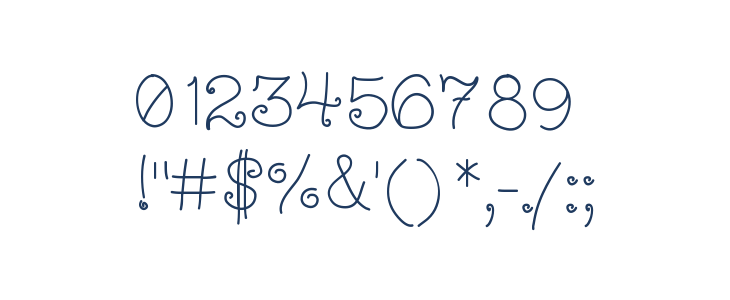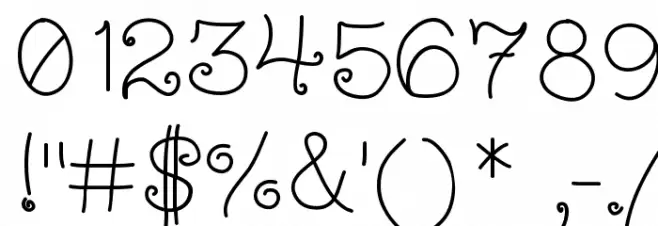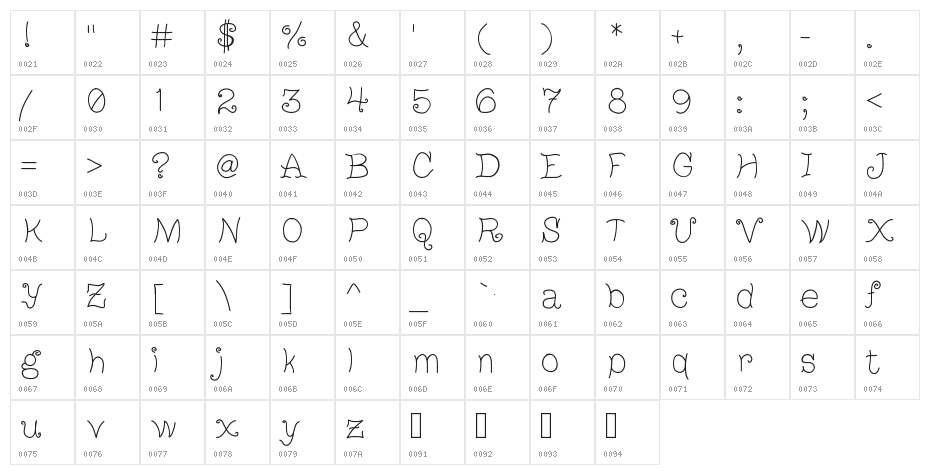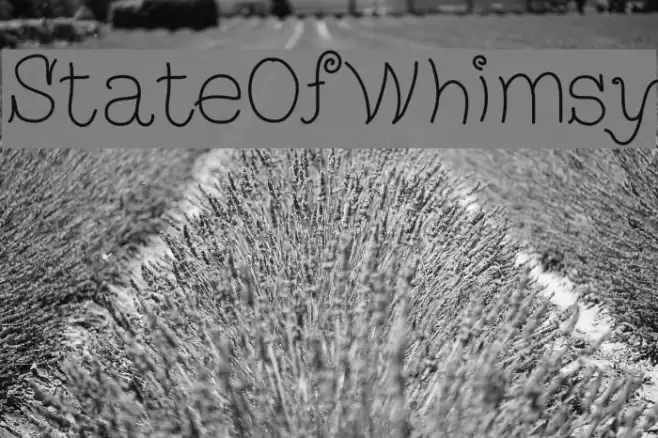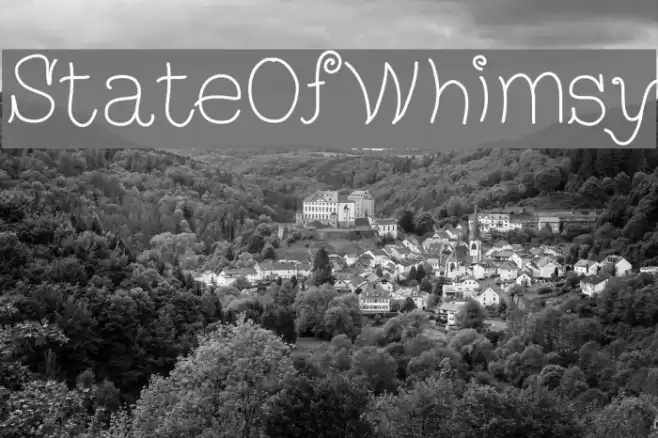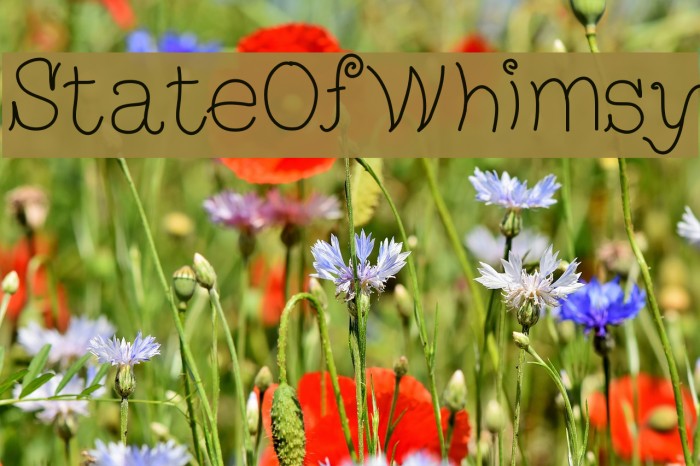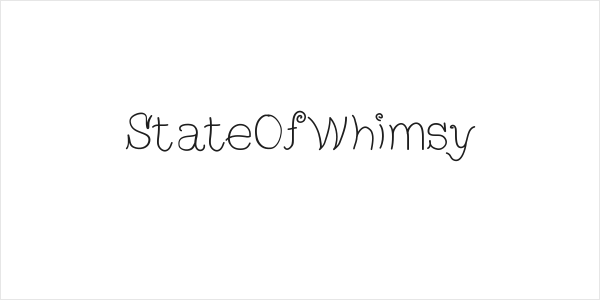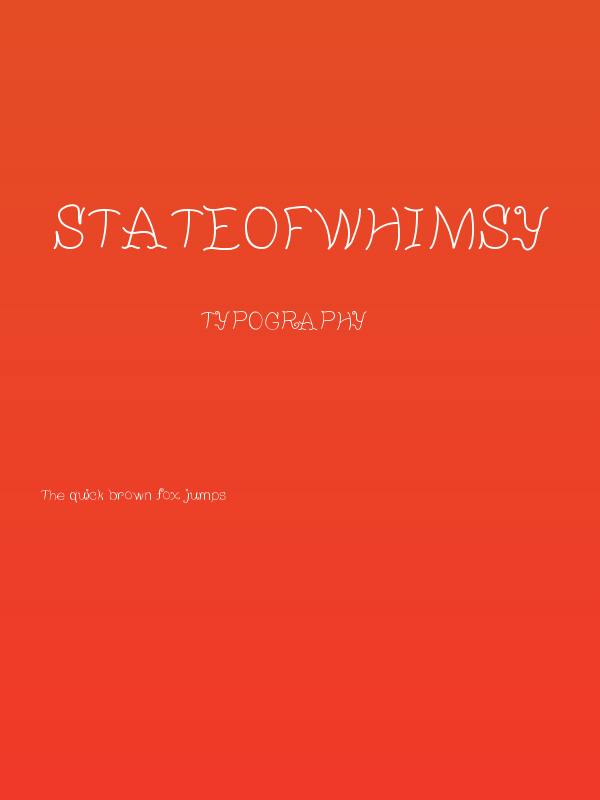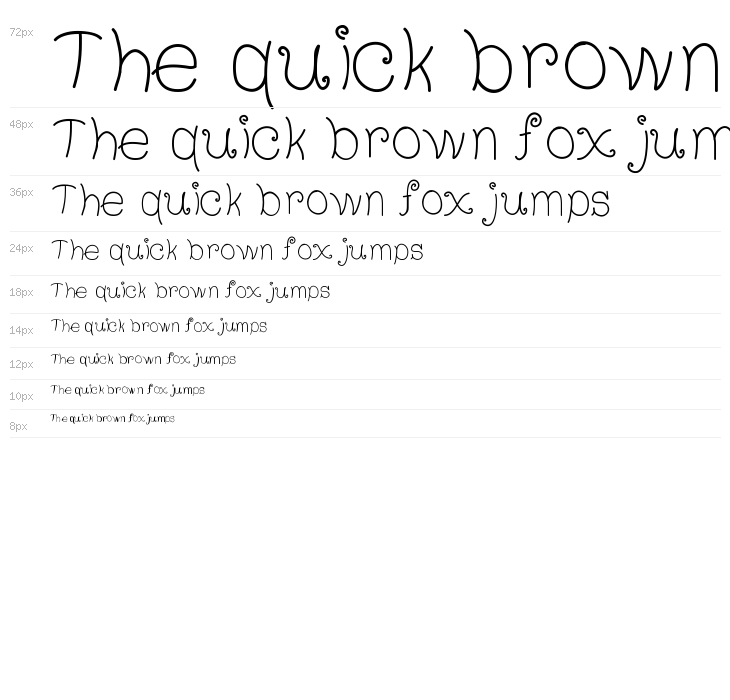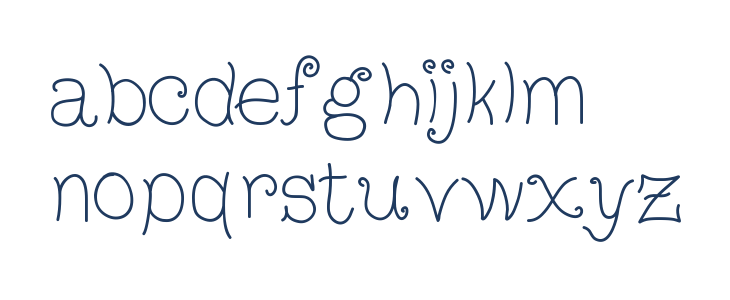
StateOfWhimsy Font
StateOfWhimsy Description
This whimsical font features playful, curly serifs and a light-hearted design that evokes a sense of fun and creativity. The uppercase letters are characterized by their unique, swirling embellishments, while the lowercase letters maintain a consistent, flowing style. Numbers and special characters are designed with the same playful curves, adding to the font's overall charm. The strokes are consistent in thickness, providing a medium contrast that enhances readability while maintaining a decorative flair. This font is perfect for projects that require a touch of whimsy and imagination.
| Overall Style | Whimsical, Decorative |
| Proposed Projects | Ideal for children's books, playful branding, greeting cards, and creative invitations. |